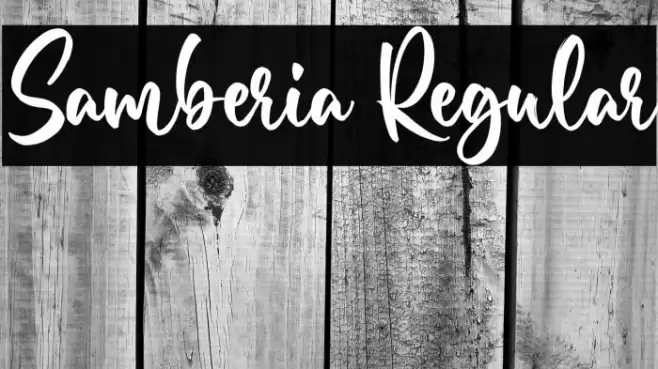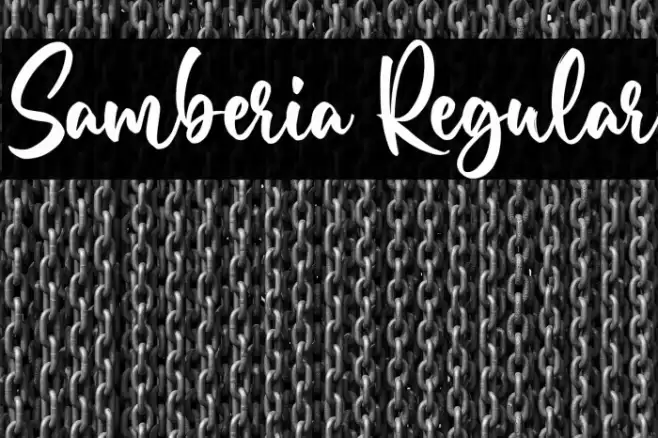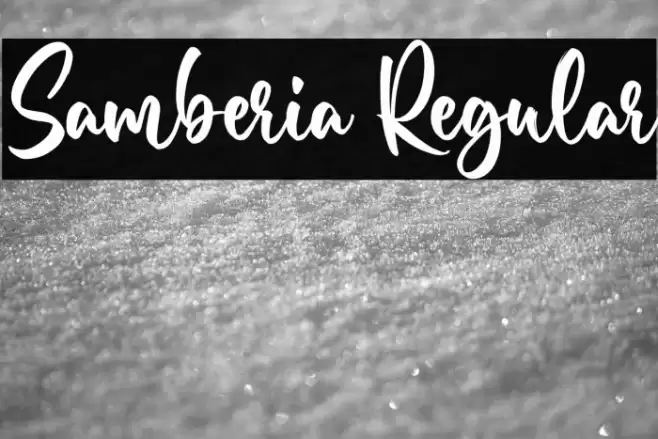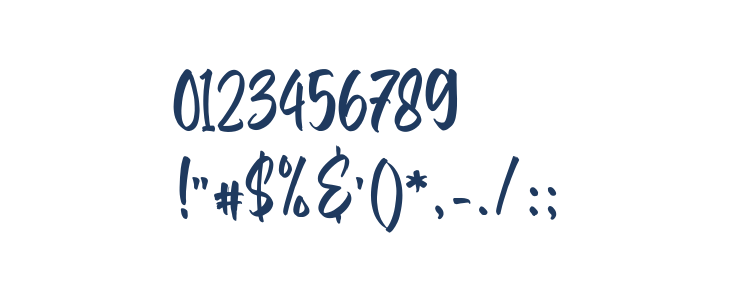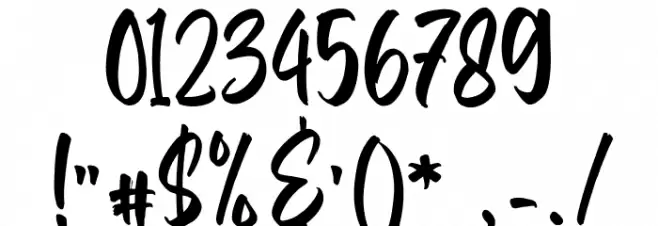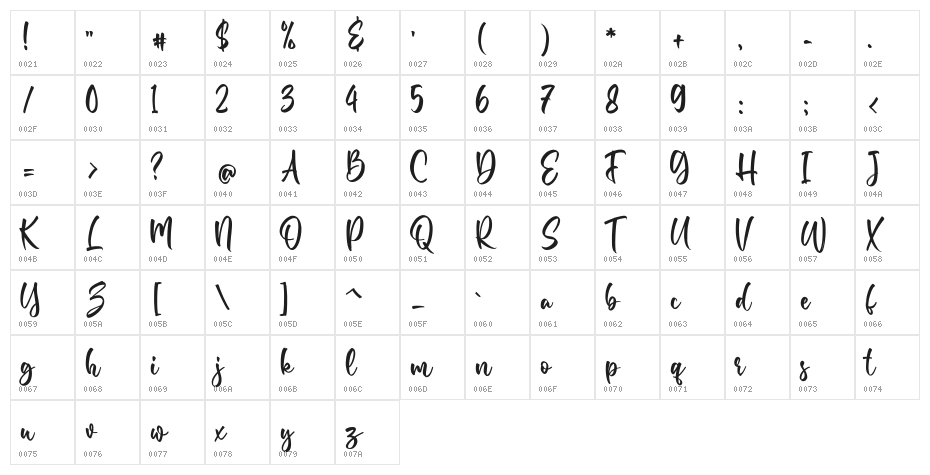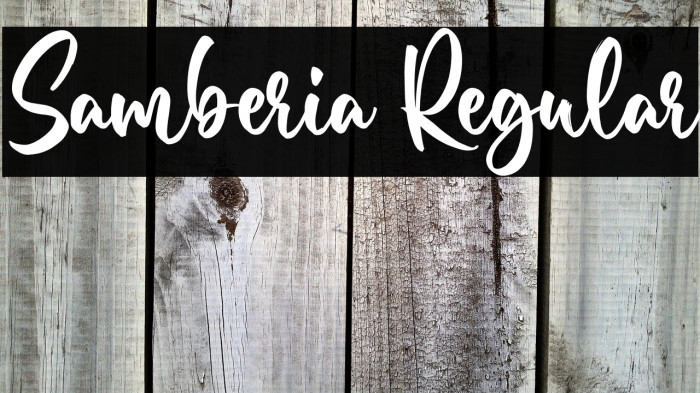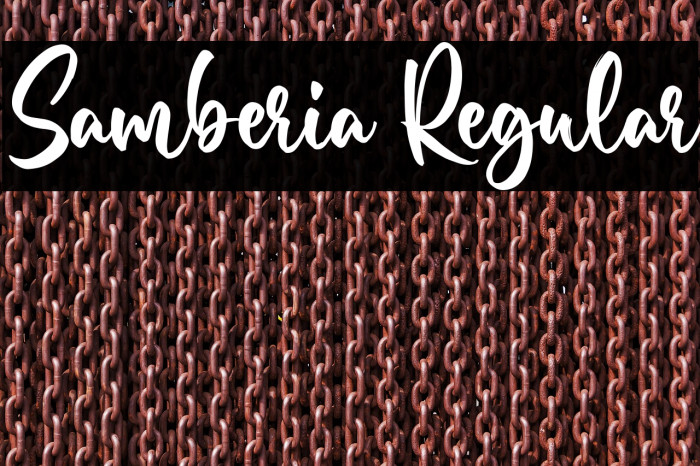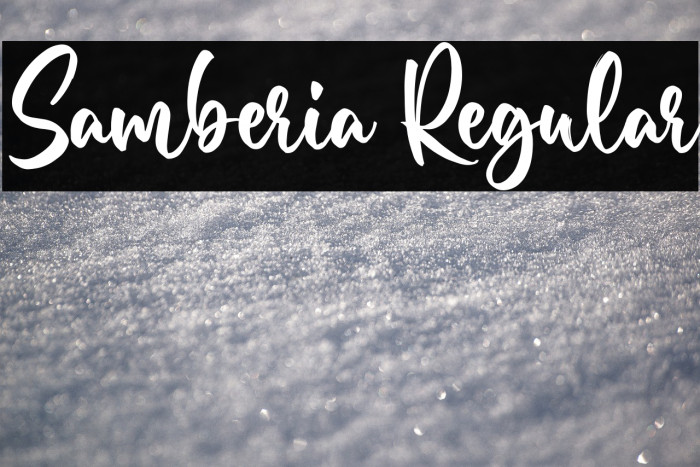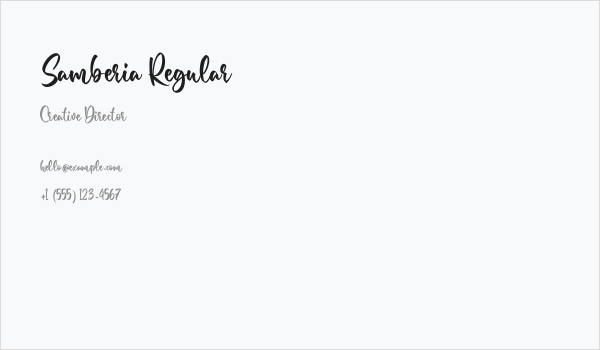
Samberia Regular Font
Samberia Regular Description
This font features a lively and energetic script style with a handwritten appearance. The letters are bold and fluid, with a natural flow that mimics the movement of a brush or pen. The uppercase letters are slightly taller and more pronounced, while the lowercase letters maintain a consistent rhythm and balance. The numerals are clear and easy to read, complementing the overall style. Special characters are included, adding versatility for various design needs. The font's playful yet sophisticated look makes it suitable for creative projects that require a personal touch.
A bold, handwritten script font with a lively and fluid style from Regular fonts.
- Proposed Projects: Ideal for branding, invitations, greeting cards, and social media graphics.
- Use Case: Logos, Headlines, Invitations